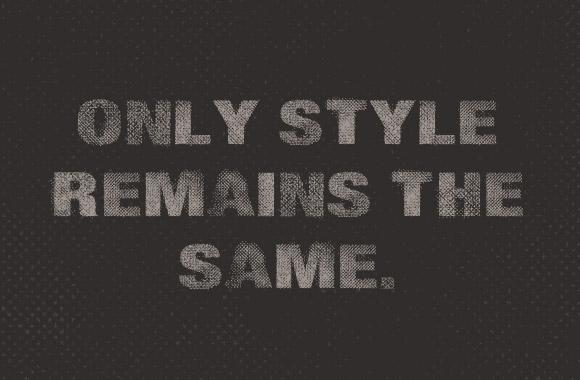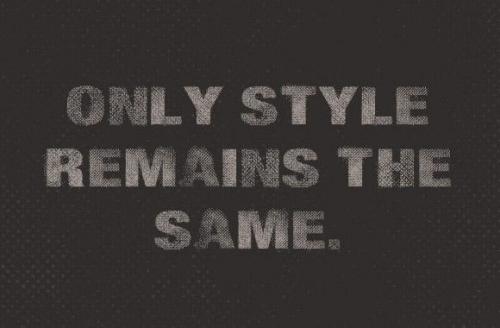
Patchwork – Bold Title Font
Patchwork is a big bold title font that is patched together with fabric, thread and pixels. This is the perfect font for gig posters that need the right amount of grunginess.